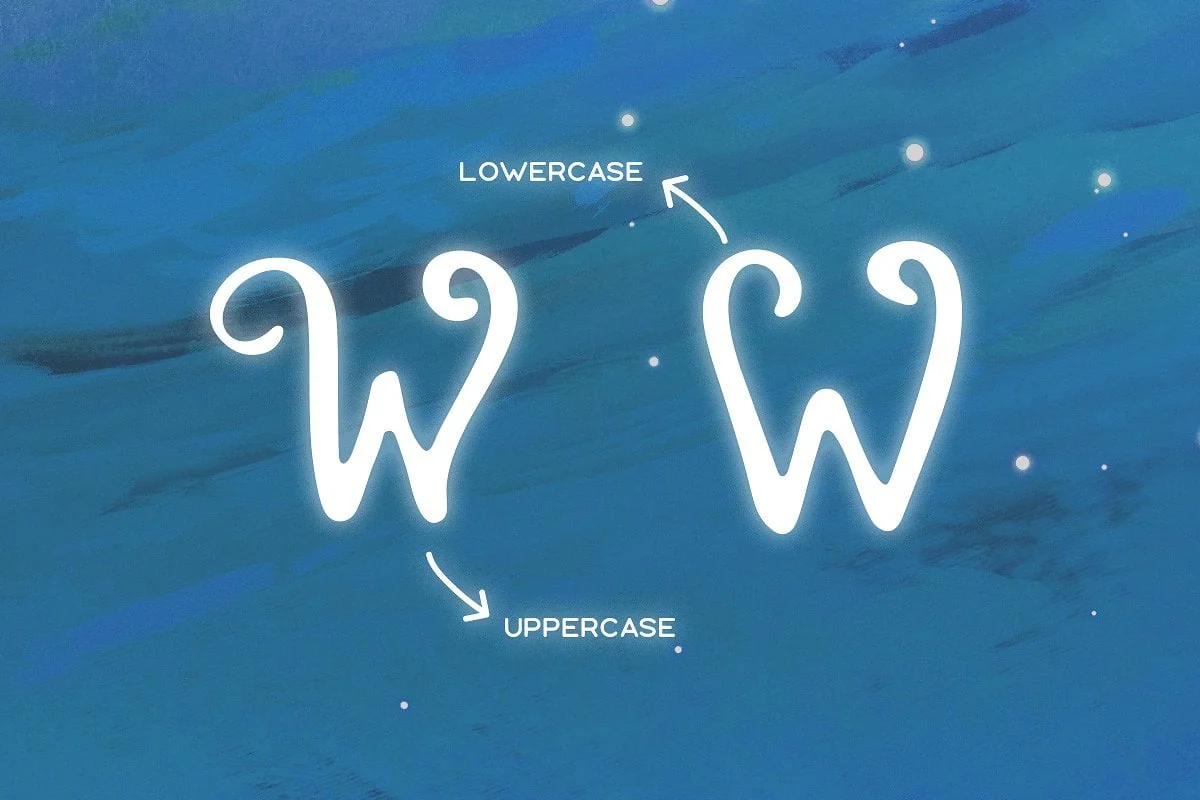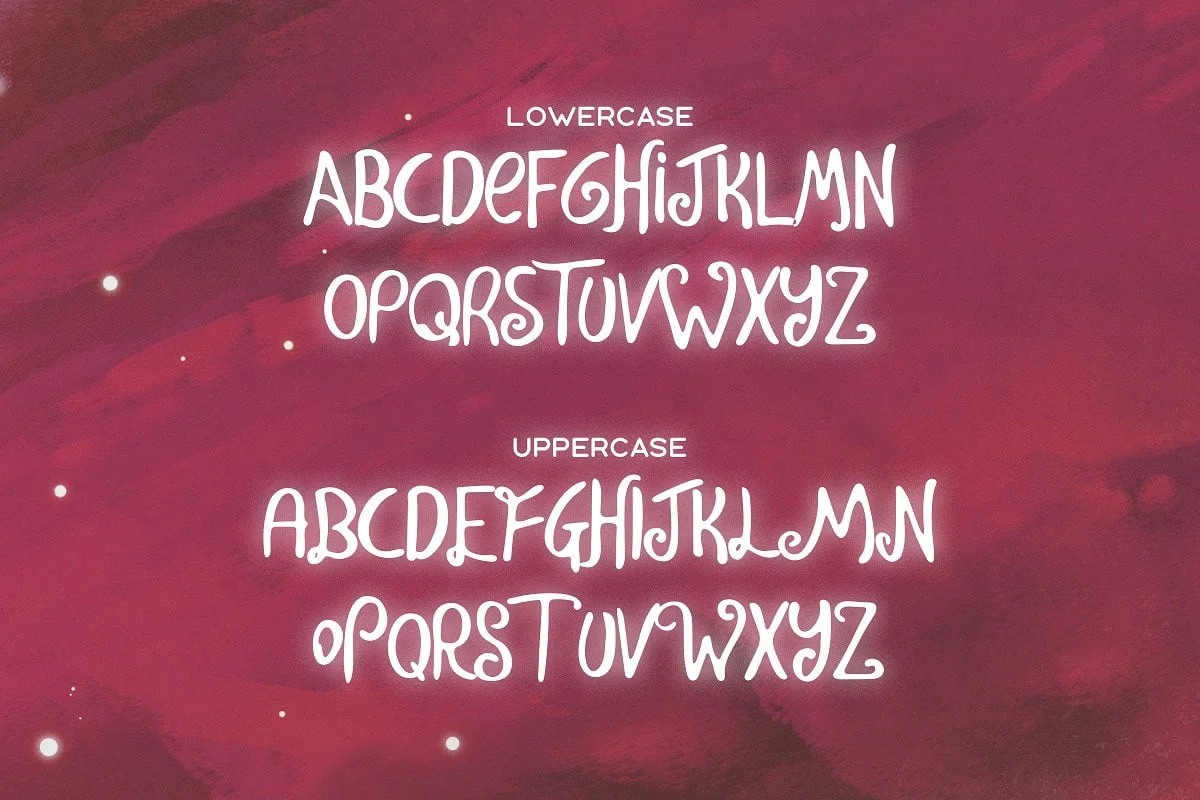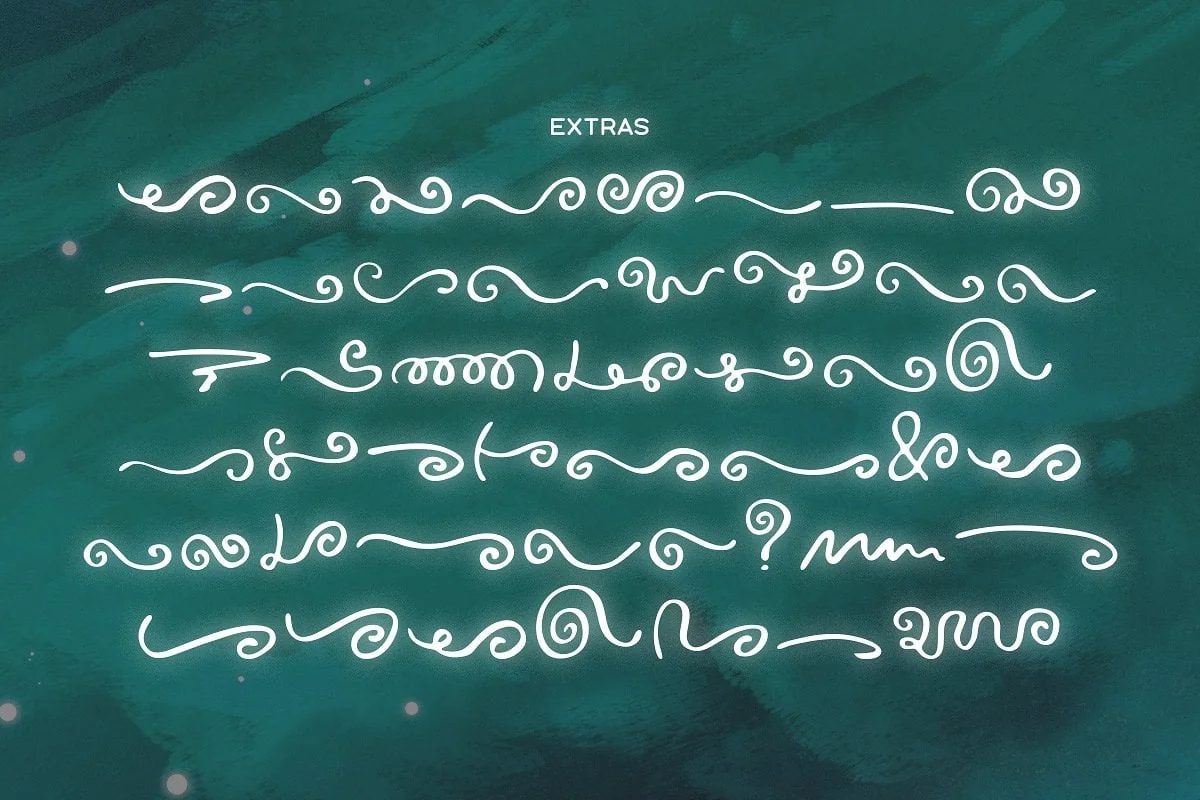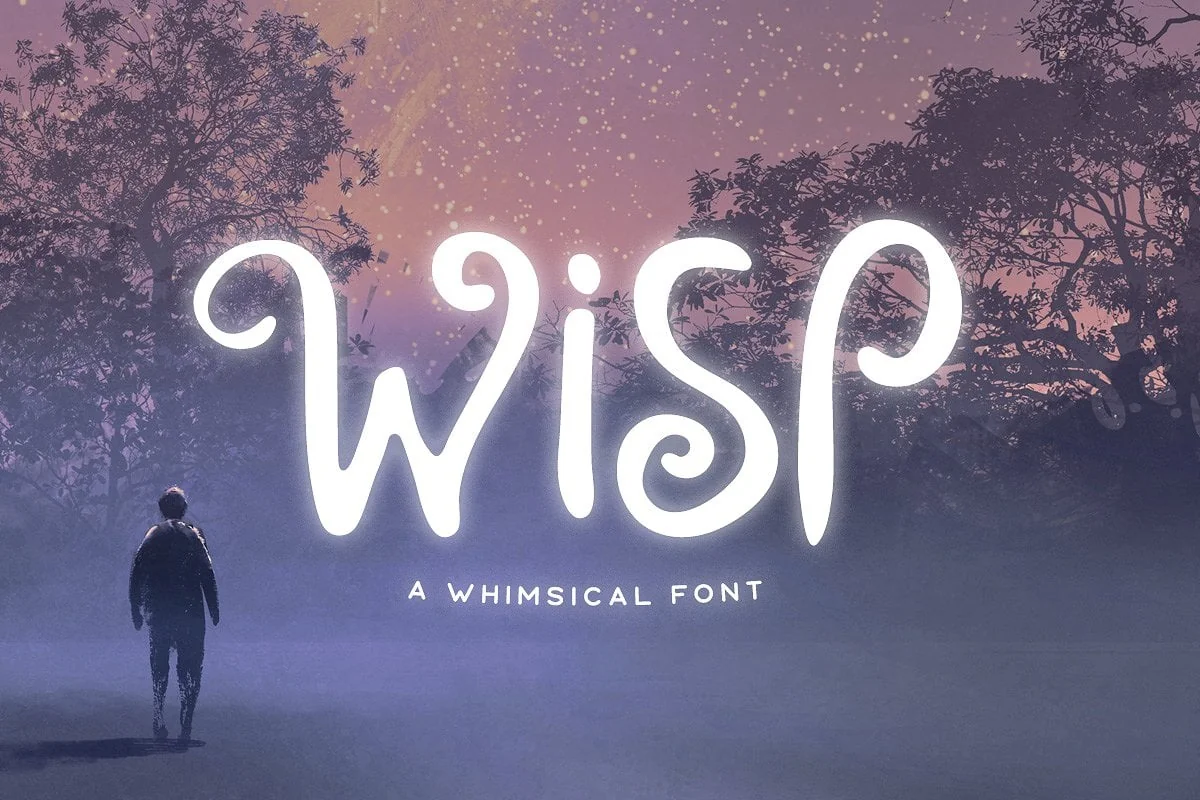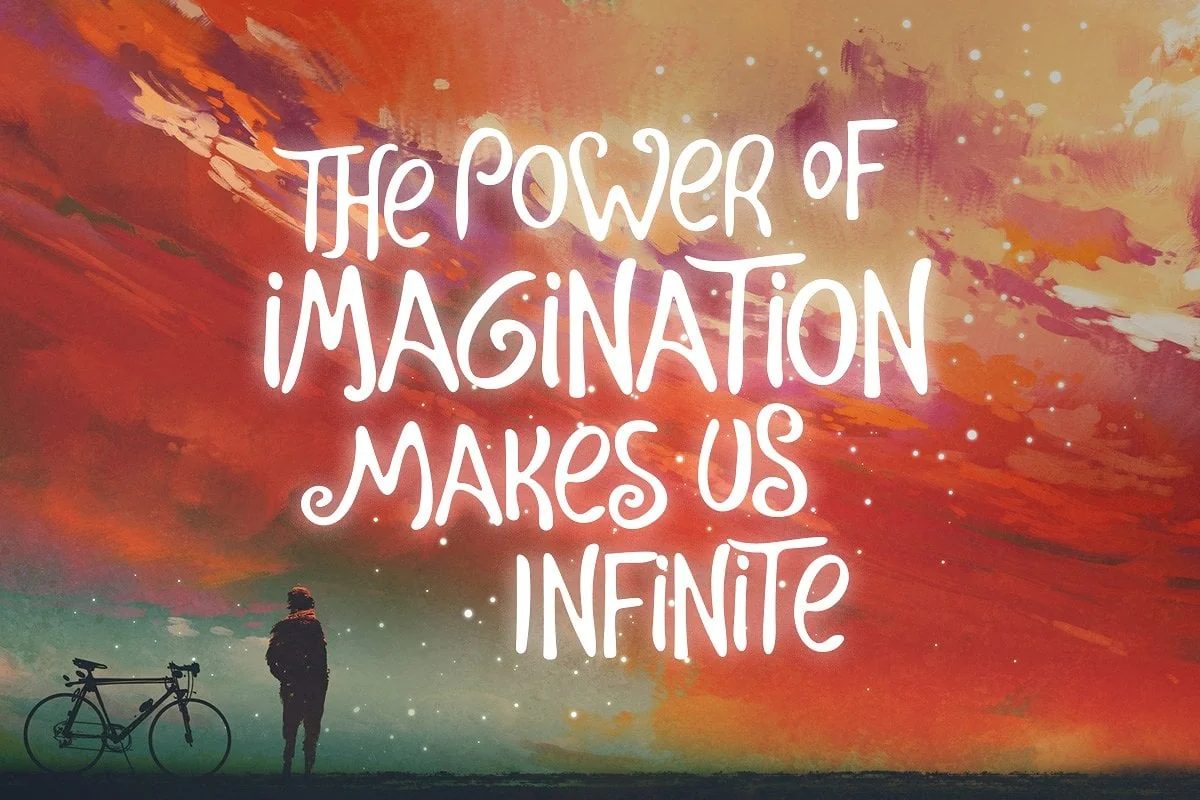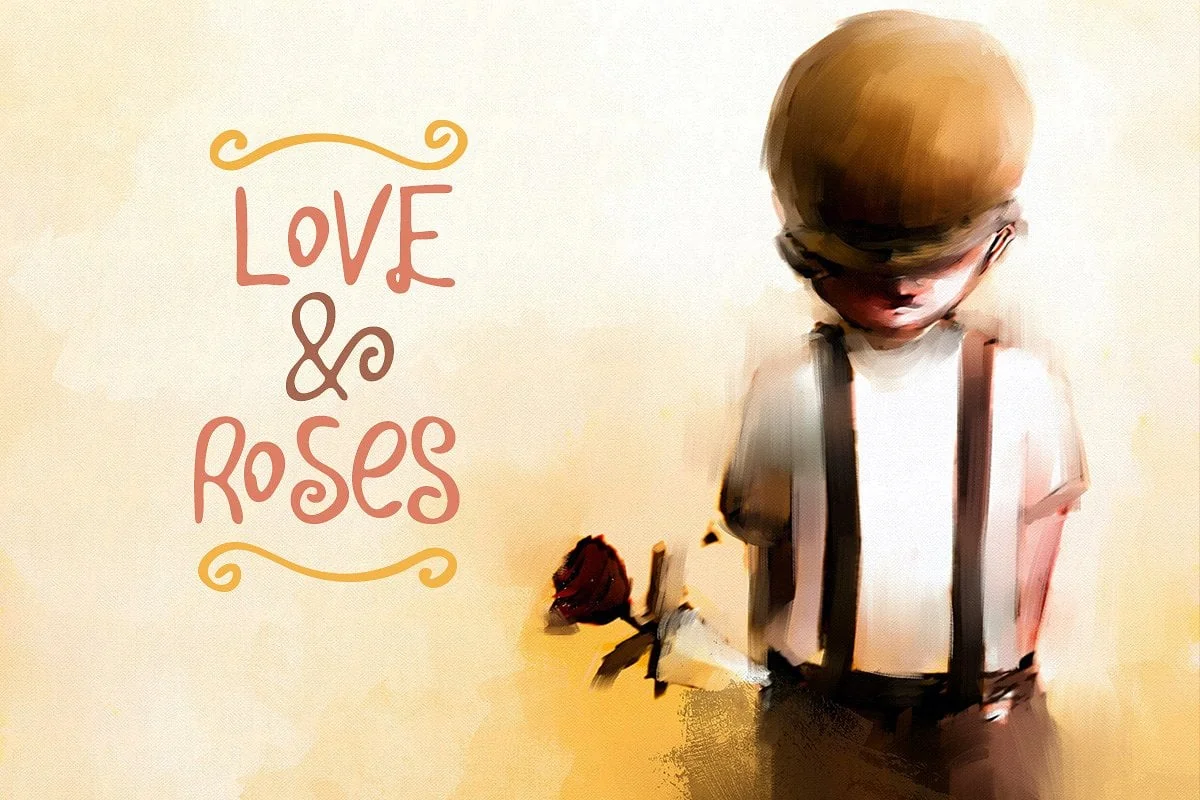
Wisp Typeface
Wisp is a display font with magical curves. Almost every letter has an alternate version that can be toggled with Caps Lock. The font includes multilingual uppercase letters, numbers, punctuation and an extra font file with tons of decorative elements.